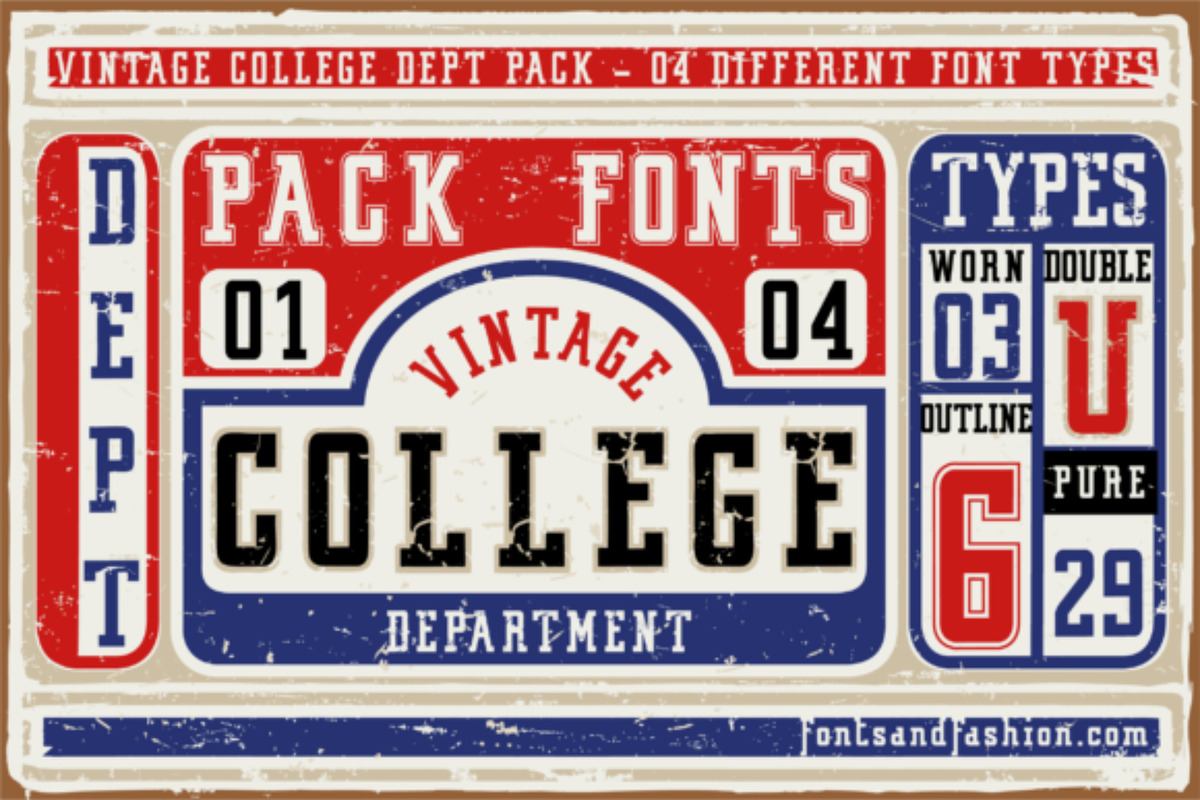
The Vintage College Font brings a classic, retro feel to your design projects. Inspired by traditional collegiate lettering, this font is perfect for vintage-themed designs, sports branding, and retro-style logos. You can try it out for free by downloading Vintage College Font Free Download today!